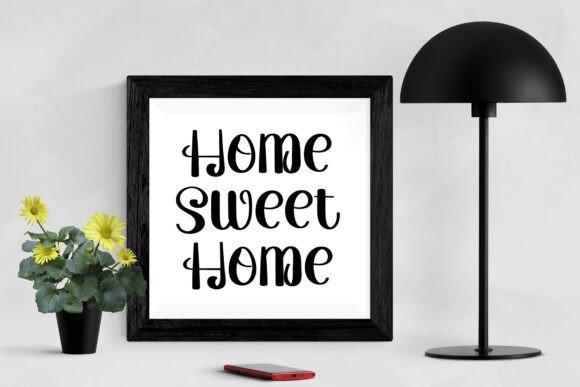
Bali Font: Elevate Your Designs with Elegance and Sophistication
In the world of typography, fonts play a crucial role in conveying the tone and personality of a design. Among the numerous fonts available, Bali Font stands out as a unique and elegant choice, specially crafted to elevate your projects to new heights. This professionally designed font boasts a hand-touch finish, making it perfect for a wide range of applications, from wedding invitations to school assignments.
The Bali Font Difference
What sets Bali Font apart from other fonts is its meticulous craftsmanship. Each letter has been carefully designed to exude elegance and sophistication, ensuring that your designs stand out from the crowd. The font’s versatility makes it an excellent choice for various projects, including:
- Wedding invitation cards
- Birthday greetings
- Party invitations
- School assignments
- Creative projects
Key Features of Bali Font
Bali Font comes with a range of features that make it an attractive choice for designers:
- Professional Hand-Touch Finish: Each letter has been carefully crafted with a professional hand touch, giving the font a unique and elegant feel.
- Versatility: The font is suitable for a wide range of projects, from formal events to creative assignments.
Benefits of Using Bali Font
By incorporating Bali Font into your designs, you can reap numerous benefits:
- Elegance and Sophistication: The font’s elegant design adds a touch of sophistication to your projects, making them stand out from the crowd.
- Improved Readability: Bali Font’s clear and concise design ensures that your message is conveyed effectively, making it easy for readers to understand.
- Time-Saving: With Bali Font, you can save time and effort in designing your projects, as the font’s elegant design does the heavy lifting.
Tips for Using Bali Font Effectively
To get the most out of Bali Font, consider the following tips:
- Pair with Complementary Fonts: Combine Bali Font with complementary fonts to create a visually appealing design.
- Experiment with Sizes and Colors: Play around with different sizes and colors to add depth and interest to your design.
- Use for Headings and Titles: Bali Font is perfect for headings and titles, adding a touch of elegance to your design.
In conclusion, Bali Font is a unique and elegant font that can elevate your designs to new heights. With its professional hand-touch finish, glyph accessibility, and versatility, this font is perfect for a wide range of projects. By incorporating Bali Font into your designs, you can add elegance and sophistication, improve readability, and save time. So why wait? Apply Bali Font to your creative ideas and watch your designs come to life!